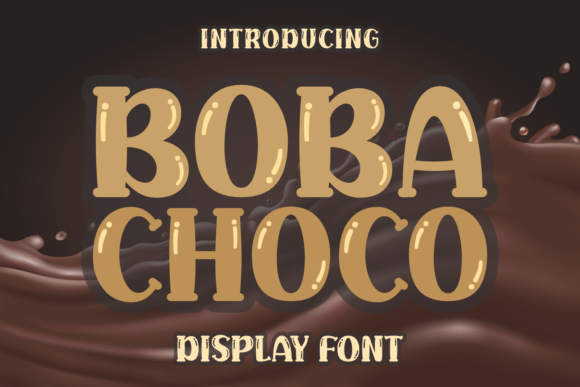
The Bubbly Charm of Boba Choco Font: A Designer’s Delight
I’ll never forget the time I was working on a project for a kids’ clothing store, and I was struggling to find the perfect font that would capture the playful and fun vibe of the brand. That’s when I stumbled upon Boba Choco Font, and it instantly became my go-to choice. In this article, I’ll share my experience with this lovely typeface, its features, and how to make the most of it in your designs.
An Honest Review of Boba Choco Font
Boba Choco Font is a fun and creative display font that has won my heart with its bubbly characters and cartoonish 3D feel. Here are some things I love about it:
- ✨ Unique and playful design that’s perfect for kids’ brands, music, movies, and more
- ✅ Easy to read and recognize, even in large sizes
- 💥 Highly versatile and can be used for posters, magazines, quotes, fashion branding, and more
- 🎉 Available in various weights and styles to suit different design needs
However, there are a few small quirks to keep in mind:
- ⚠️ Limited suitability for body text due to its display font nature
- 🤔 Some characters may not be suitable for professional or formal designs
The Designer Inspiration Behind Boba Choco Font
Boba Choco Font was designed with the intention of creating a fun and playful typeface that would capture the imagination of designers and audiences alike. The designer, inspired by the whimsical world of children’s books and cartoons, aimed to create a font that would bring a smile to people’s faces. With its bubbly characters and 3D feel, Boba Choco Font is the perfect choice for designers looking to add a touch of playfulness to their projects.
| What is Boba Choco Font best suited for? | Boba Choco Font is best suited for kids’ clothing stores, music, movies, posters, magazines, quotes, fashion branding, and more. |
| Is Boba Choco Font suitable for body text? | No, Boba Choco Font is a display font and is not recommended for body text due to its playful and decorative nature. |
| Is Boba Choco Font available in different weights and styles? | Yes, Boba Choco Font is available in various weights and styles to suit different design needs. |